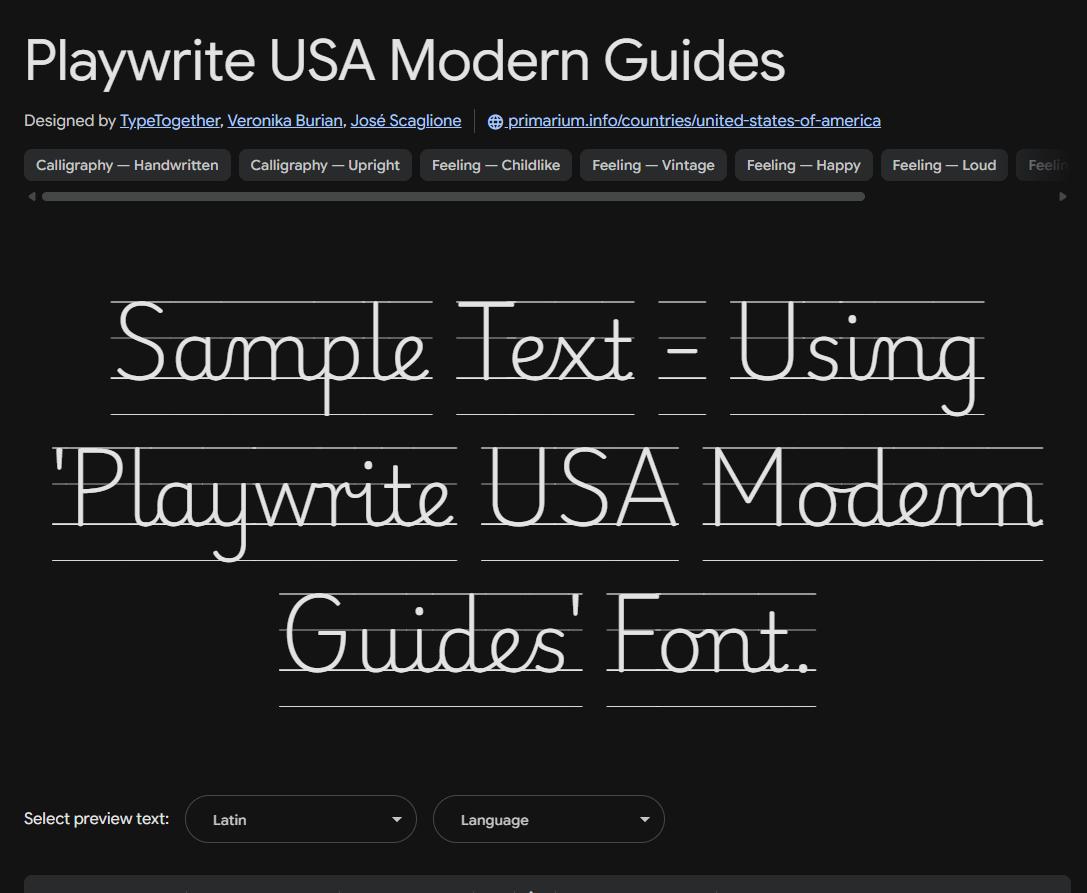
The Playwrite USA Modern Guides, a specialized single-style typeface engineered by Veronika Burian and José Scaglione of TypeTogether, represents a sophisticated synthesis of pedagogical requirements and digital font engineering. By embedding precise horizontal metrics-including baseline, x-height, and ascender guides-directly into the glyph architecture, this typeface functions as a foundational scaffolding for handwriting instruction based on modern United States educational standards. The design prioritizes a consistent stroke ductus and complex joining logic, ensuring that each character's skeleton remains legible while providing the necessary visual constraints for kinetic learning. As a critical component of a broader initiative to digitize school scripts, this typeface leverages advanced OpenType features to maintain rhythmic spacing and stroke continuity, effectively bridging the gap between static typography and fluid, manual cursive development.
The Playwrite USA Modern Guides font family functions as a sophisticated pedagogical tool, synthesizing the disciplined structure of Upright Calligraphy with the organic fluidity of a contemporary Handwritten script to facilitate early literacy development. By integrating prominent x-heights and simplified terminal strokes, the typeface achieves a balanced Childlike and Playful aesthetic that is both Happy in its rhythmic cadence and Loud in its visual clarity, ensuring high legibility for novice readers. This variable font architecture employs a Rugged, grounded baseline guided by instructional ruling, evoking a nostalgic Vintage scholastic charm while utilizing modern kerning algorithms to maintain a cohesive digital flow. Through its unique blend of artisanal stroke modulation and rigorous typographic engineering, Playwrite USA Modern transforms traditional educational lettering into a semantically rich, high-contrast experience that bridges the gap between classic ink-on-paper heritage and modern instructional design.
Playwrite USA Modern Guides, characterized by its integrated pedagogical horizontal metrics and instructional skeletal construction, is fundamentally ill-suited for high-density fiscal reporting or enterprise-level legal documentation where visual noise reduction is paramount. Because the typeface explicitly renders the baseline, midline, and cap-height guides within the character cell to facilitate handwriting acquisition, it generates a high degree of cognitive load that interferes with the rapid scanning patterns required in complex technical UI/UX environments. Furthermore, its specific engineering for the primary education sector-emphasizing precise stroke exits and joins based on U.S. pedagogical frameworks-lacks the neutral typographic color and sophisticated optical scaling necessary for luxury brand identities or large-scale wayfinding systems, where the presence of permanent instructional guides would be perceived as a distracting structural artifact rather than a functional design element.
Integrated guide lines anchor the text within a layout, providing a structured framework that directs the eye toward key information through a disciplined alignment. By formalizing the baseline and x-height, these guides reduce cognitive load through a fixed spatial relationship defined by rhythmic verticality.
To ensure the hairline details of the guides remain visible without blurring or disappearing, a minimum size of 24 points is generally recommended for high-resolution displays. Sub-pixel rendering limitations at smaller sizes can cause aliasing artifacts, whereas larger displays preserve the precise vector coordinates of the guide strokes.
High-contrast pairings enhance the legibility of the guides, making the structural elements of the typeface pop against the background for maximum impact. Chromatic aberration is minimized in these settings, allowing the luminance contrast ratio to maintain the integrity of thin-stroke glyph construction.
Pairing this font with a clean sans-serif creates a sophisticated tension between calligraphic structure and modern geometric minimalism. The juxtaposition relies on the optical balance between the ornate ascenders of the script and the low-modulation terminals characteristic of Neo-Grotesque fonts.
While visually striking for hero sections and display headers, the complexity of the guide lines may hinder readability in micro-copy or dense navigational menus. UI responsiveness requires careful implementation to prevent the fine guide-stroke weights from dropping below the viewport's 1px rasterization threshold.
In multi-line blocks, the guides create a rhythmic pattern that simulates the appearance of vintage school notebook paper or architectural blueprints. Leading must be manually adjusted to prevent the descenders from overlapping the guide lines of the subsequent line, ensuring proper inter-linear white space.
The unique aesthetic of the integrated guides offers a distinct "technical-chic" vibe that works well for creative brand marks needing a sense of precision. Scaling the vector paths for small-scale branding requires line-weight compensation to avoid the guides merging into the primary glyph bodies during compression.
The version containing guides often requires increased vertical real estate to accommodate the visual markers that extend beyond the traditional cap height. Total line-box height increases because the font's bounding box must encompass the full vertical metrics of the decorative rule extensions.
Large-format applications allow the intricate details of the guide lines to become a primary decorative feature rather than just a subtle background element. High-resolution output at 300 DPI or higher ensures that the hairline strokes do not suffer from the stair-stepping effect often seen in low-resolution rasterization.
The cursive nature dictates a tight, fluid connection between characters, making traditional tracking adjustments difficult without breaking the visual flow of the script. Kerning pairs must be meticulously managed because the guide lines are often mathematically linked to the outstroke and instroke anchor points within the font's OpenType features.